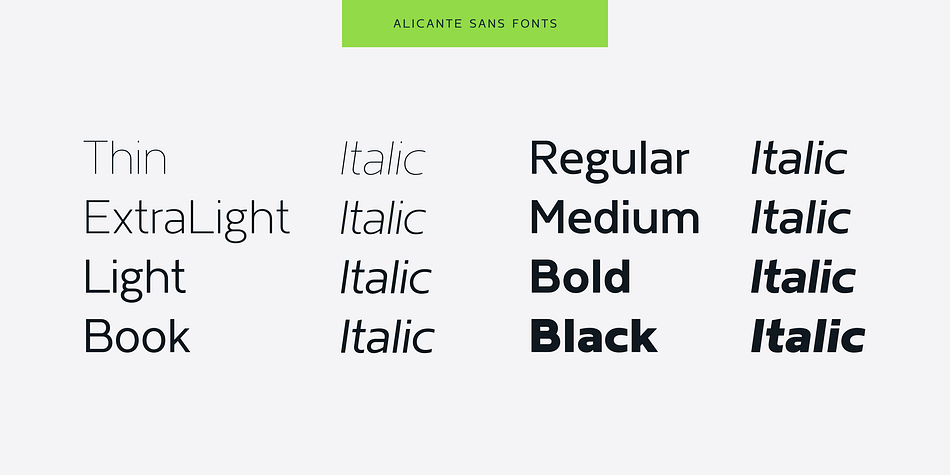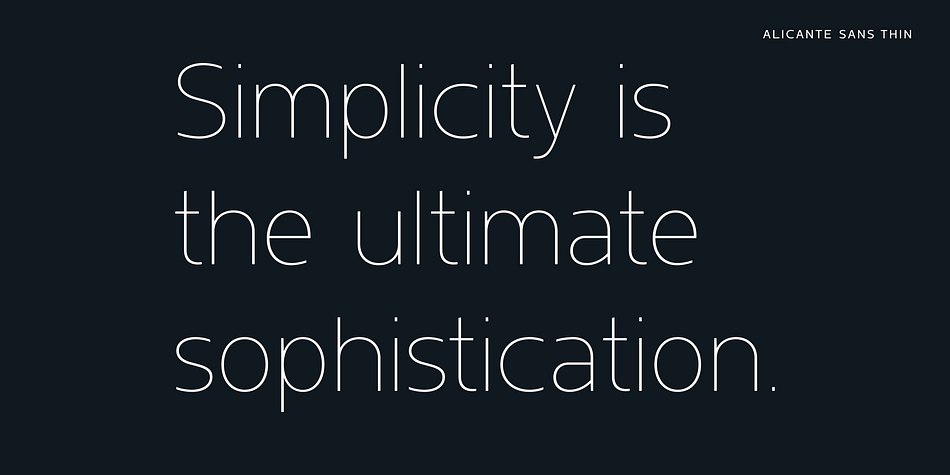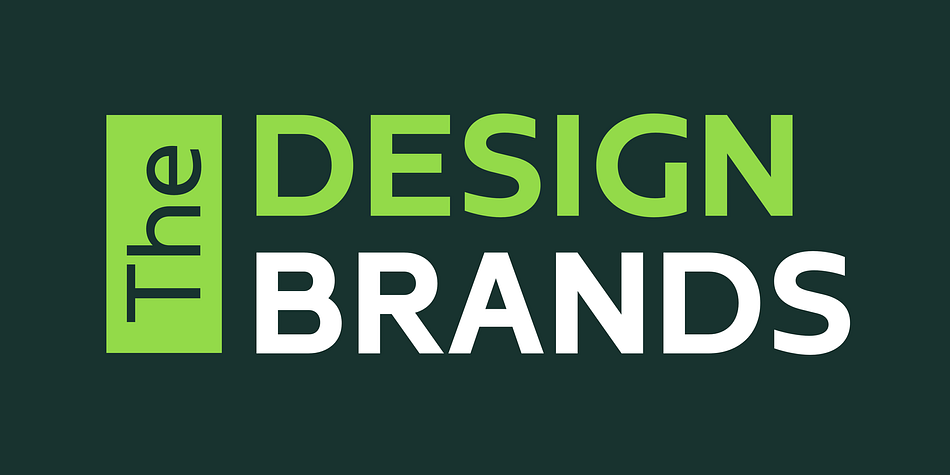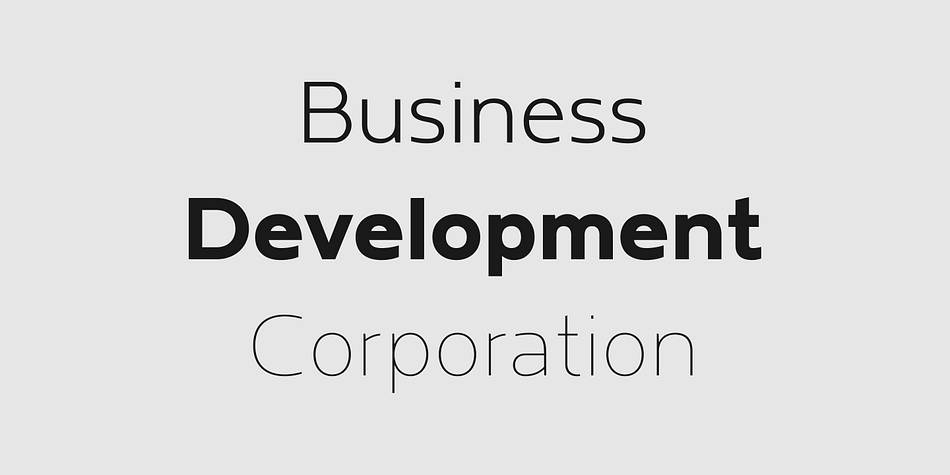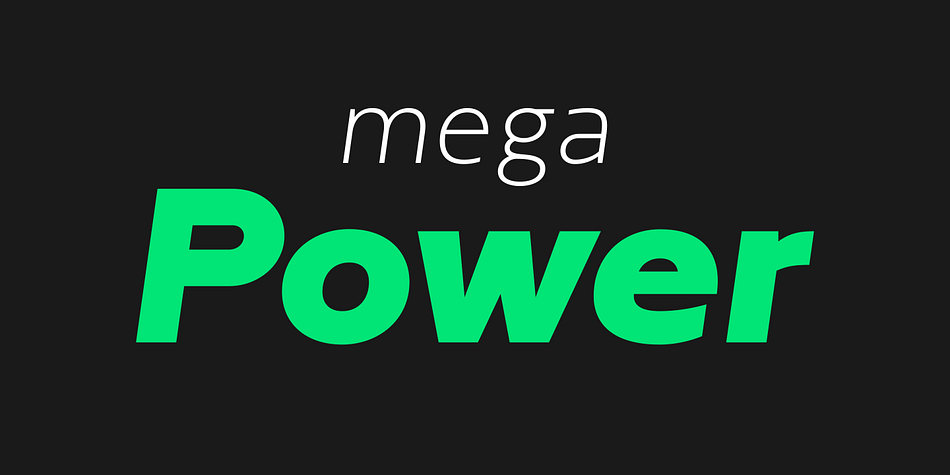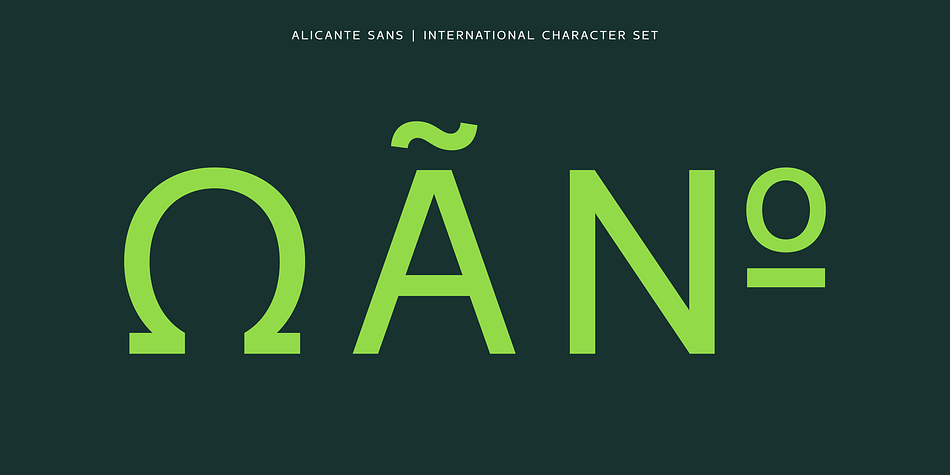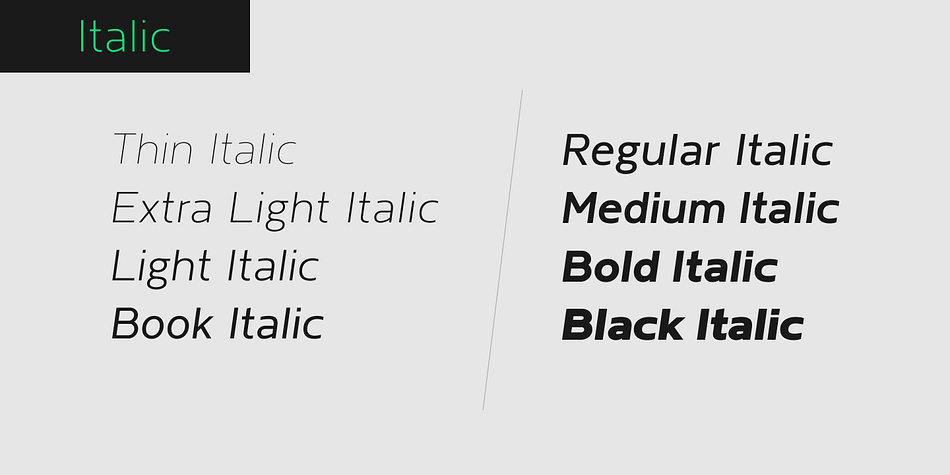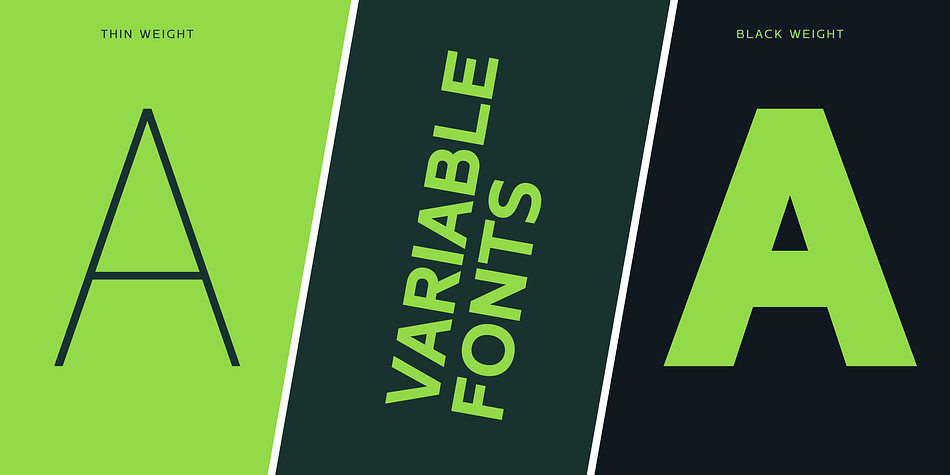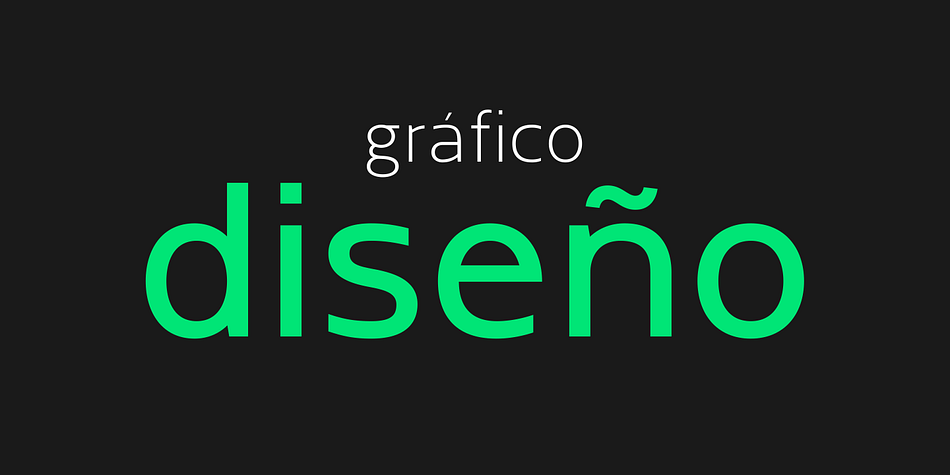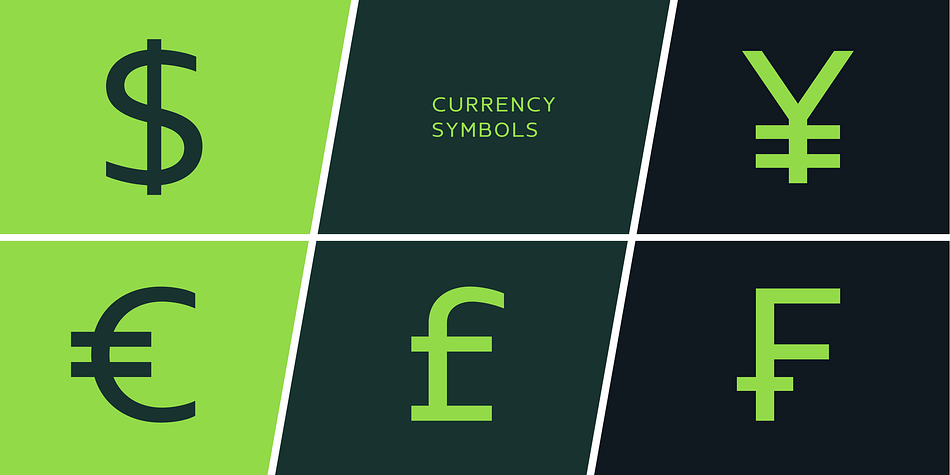
Designed by Sergej Lebedev, Alicante Sans is a sans serif font family. This typeface has sixteen styles and was published by Sergej Lebedev.
Alicante Sans, a modern font family, consists of 8 weights (Thin, Extra Light, Light, Book, Regular, Medium, Bold, Black) and Italic for each format. Alicante Sans was named after the beautiful Alicante city in Spain.
Alicante Sans is the perfect font family for text, headlines, corporate design, communication design, graphic design, branding, packaging, publishing and web use. Each font contains a set of 956 characters, supporting 212 different languages. The letters of the font family have clear shapes, which significantly improves the readability of even long texts. Finally, the font family has 24 OpenType features and a large number of stylistic alternatives. Each Alicante Sans font has been manually hinted to ensure excellent web and desktop performance.